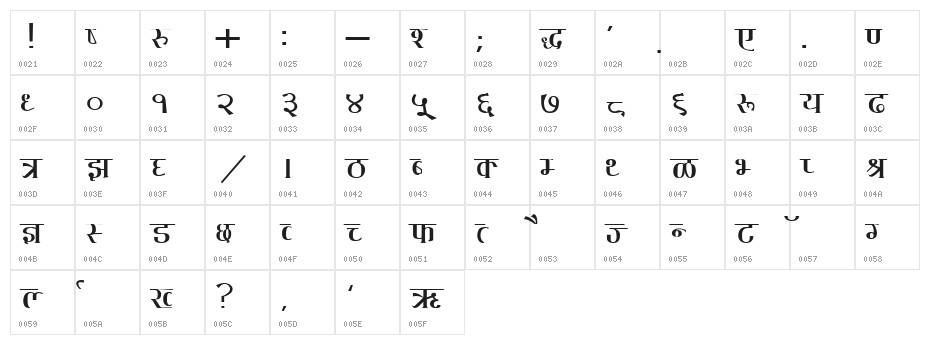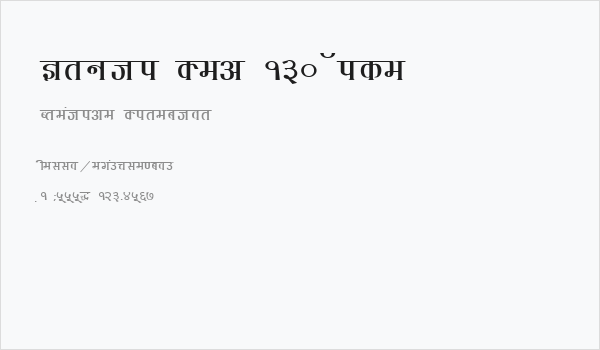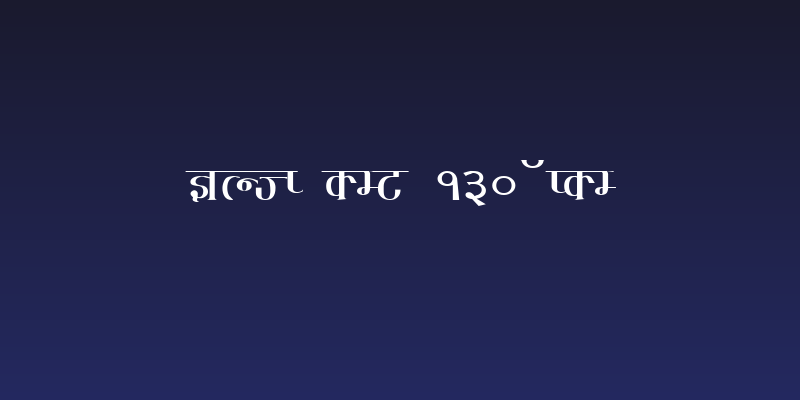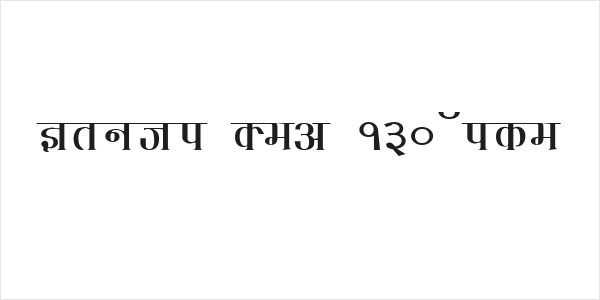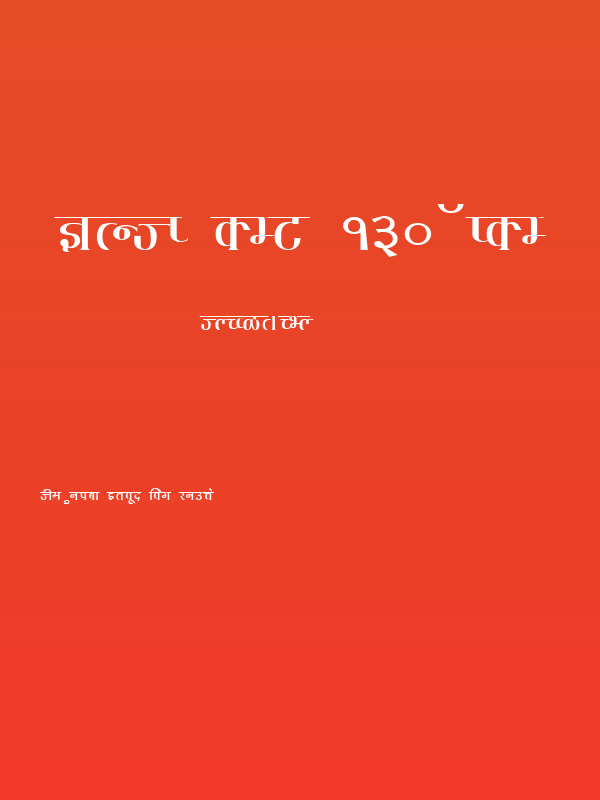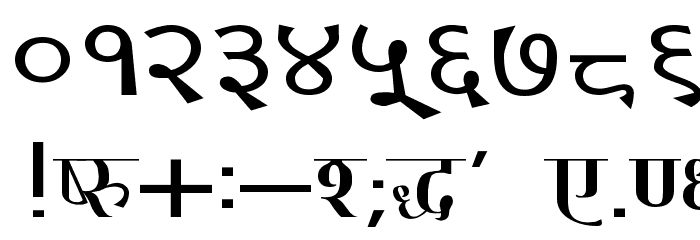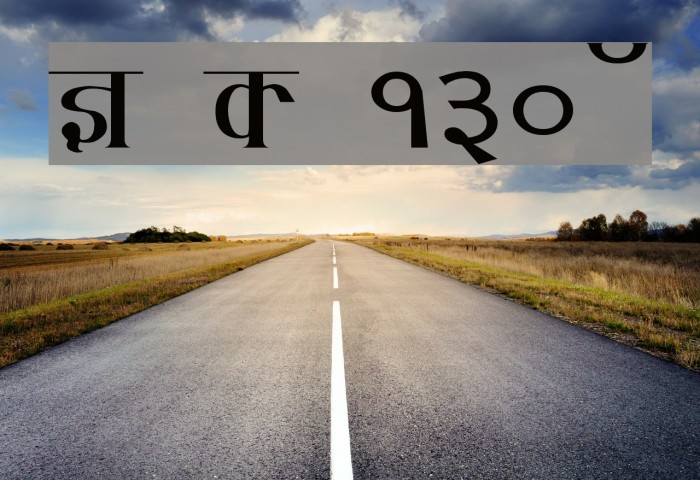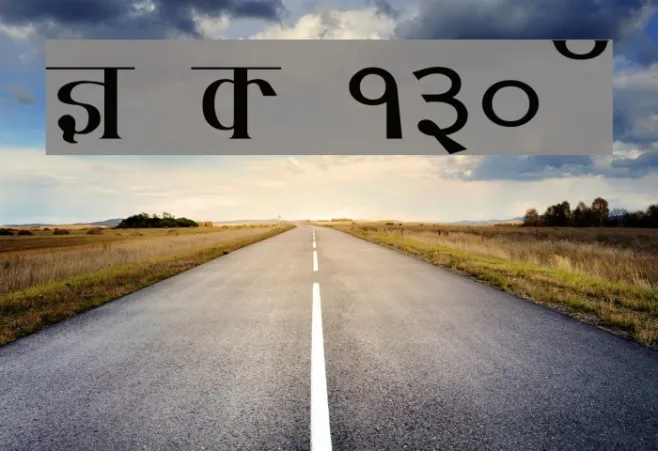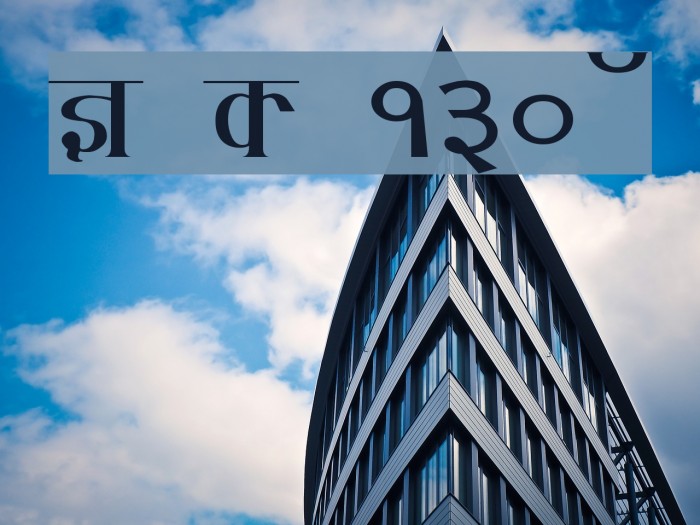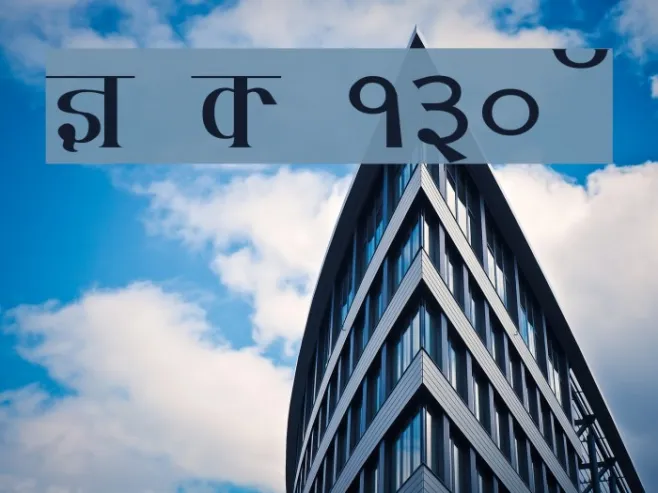
Kruti Dev 130 Wide Font
Kruti Dev 130 Wide Description
This font is a Devanagari script typeface characterized by its bold and wide letterforms. The characters are distinct with a high contrast between thick and thin strokes, giving it a dynamic and striking appearance. The script maintains traditional Devanagari elements while incorporating a modern twist with its expanded width. The characters are well-defined, with clear and sharp edges, making it suitable for display purposes. The numerals and special characters are designed to complement the overall style, maintaining consistency across the typeface. This font is ideal for projects that require a bold and impactful Devanagari script.
| Width | Expanded |
| Use Case | Headlines, Display text, Signage |
| Proposed Projects | Ideal for headlines, posters, signage, and any project requiring a bold Devanagari script. |